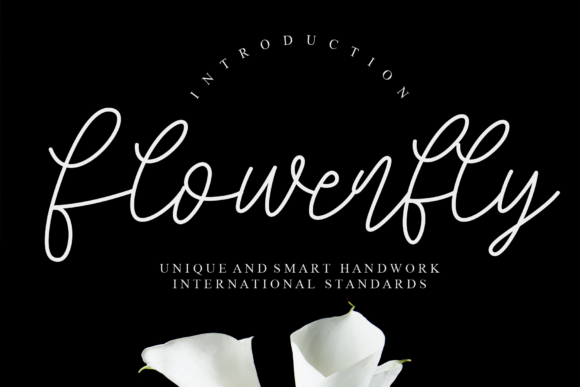
Discover the Whimsy of Flowerfly Font
Have you ever been working on a design project, and suddenly, a spark of creativity hits you? The ideas start flowing, and your imagination runs wild. That’s exactly what happened when we stumbled upon the adorable Flowerfly Font. Its playful, handwritten style instantly captured our hearts, and we knew we had to share it with you.
Designed to add a touch of realism and whimsy to your designs, the Flowerfly Font is a must-have for any creative looking to elevate their work. Its minimalistic charm makes it perfect for a wide range of applications, from branding and marketing materials to digital art and typography projects.
Whether you’re a seasoned designer or just starting out, the Flowerfly Font is an invaluable addition to your toolkit. Its versatility and charm will inspire you to create spectacular designs that capture the essence of your ideas and leave a lasting impression on your audience.
Flowerfly Font Key Features
- Font Family: Flowerfly, a beautiful, hand-drawn script font designed to evoke a sense of elegance and sophistication.
- Character Count: The font contains 240 characters, including uppercase and lowercase letters, numbers, and punctuation marks.
- Unique Characteristics: The Flowerfly font features a unique, hand-drawn design with subtle flourishes and ornaments, adding a touch of personality and whimsy to any design project.
Flowerfly Font Review
I recently had the chance to work with the Flowerfly Font, and I have to say, it’s a mixed bag. On the one hand, here are some things that work well:
- ✨ The font has a beautiful, whimsical feel to it, making it perfect for creative projects or designs that need a touch of elegance.
- ✨ The font family includes a wide range of weights and styles, giving designers plenty of flexibility when it comes to choosing the right look for their project.
- ✨ The font is highly legible, even at small sizes, making it suitable for a variety of applications.
- ⚠️ The font may not be the best choice for more formal or corporate projects, as it can come across as too playful or informal.
- ⚠️ Some users have reported issues with the font’s compatibility on certain platforms or devices, which can be frustrating for designers who need to ensure their work looks good everywhere.
Overall, I would say that the Flowerfly Font is a solid choice for designers who are looking for a unique and elegant font for their creative projects. While it may not be suitable for every application, it’s definitely worth considering for the right type of project.
To get the most out of the Flowerfly font, try combining it with other elegant fonts and adjusting the font size and style to create a unique look.
The Flowerfly font is ideal for use in wedding invitations, greeting cards, and other formal or elegant designs.